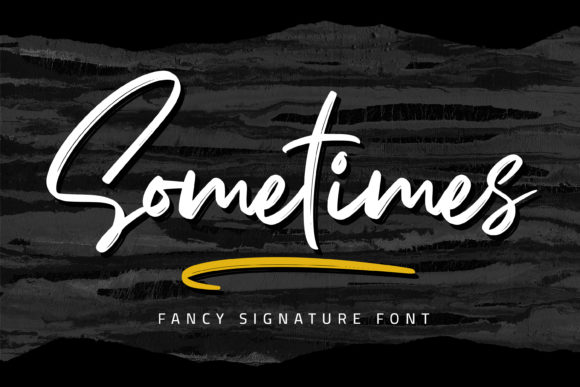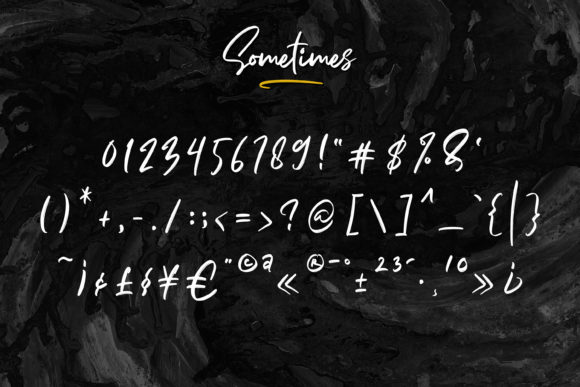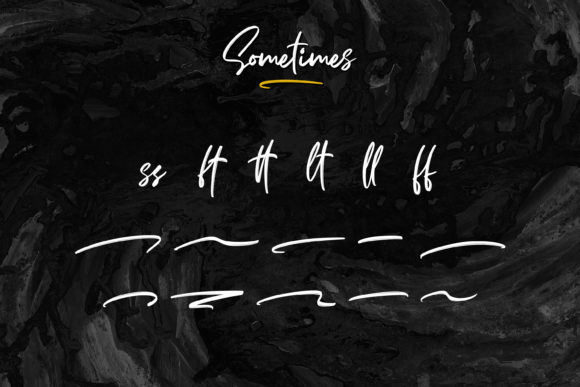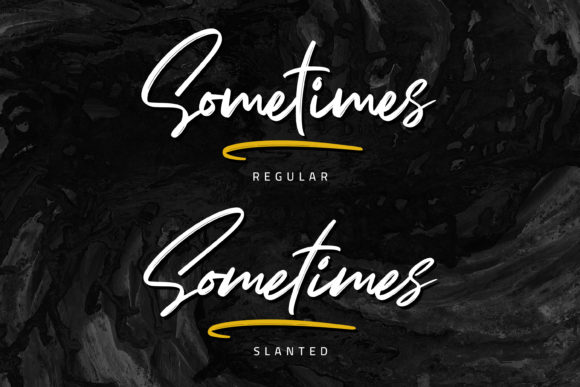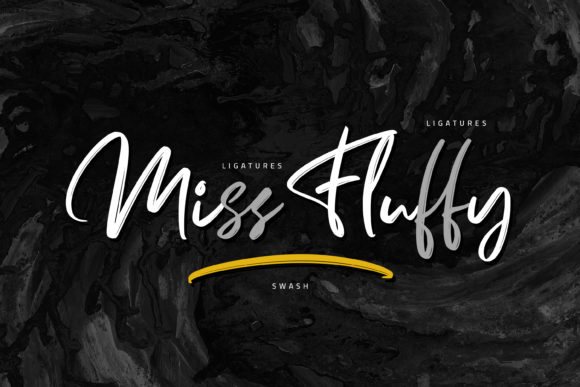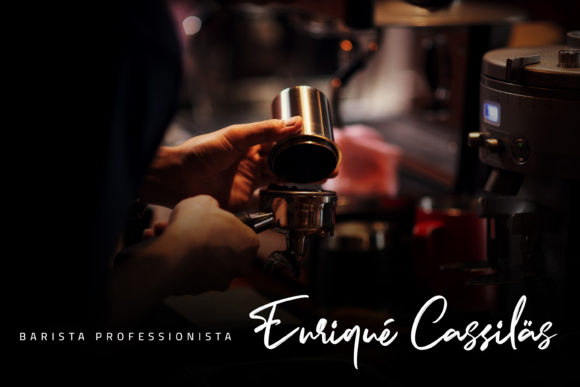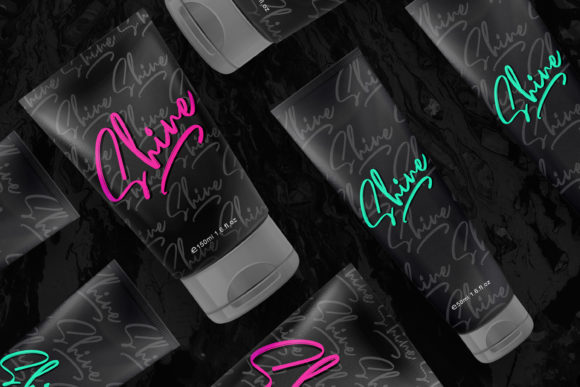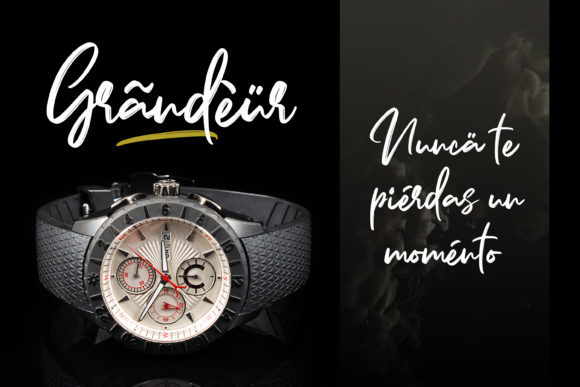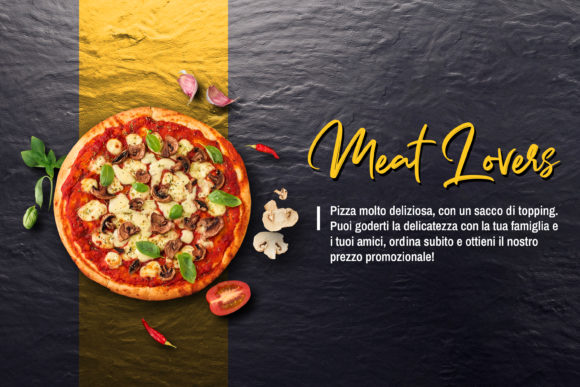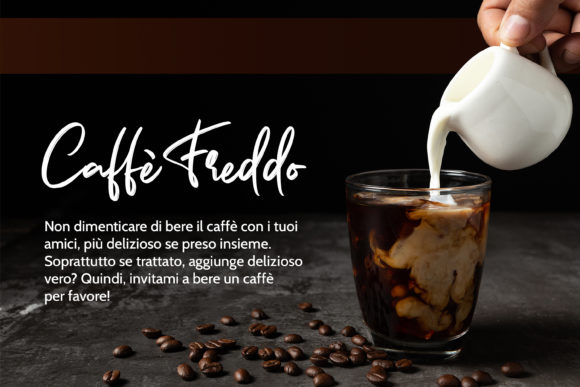
Sometimes Font
About Sometimes Font
Sometimes is a gorgeous script font that comes in both a regular and slant version. It will add an authentic feel to a wider variety of design ideas!